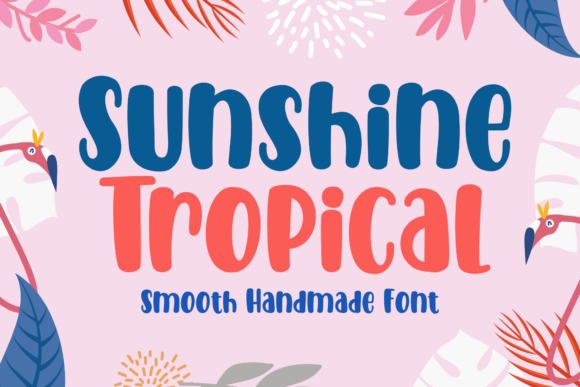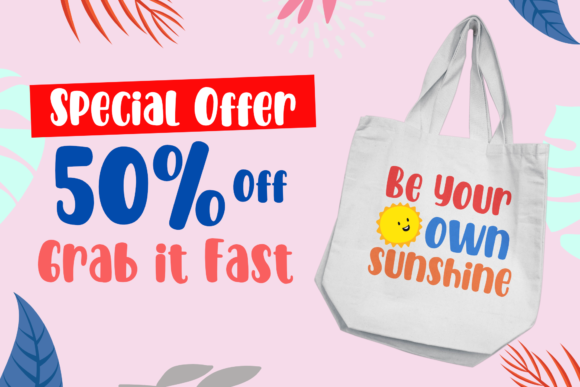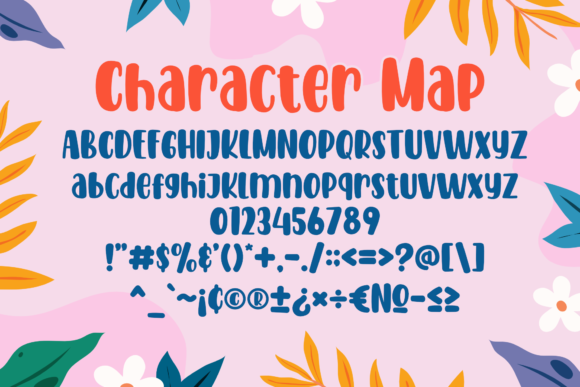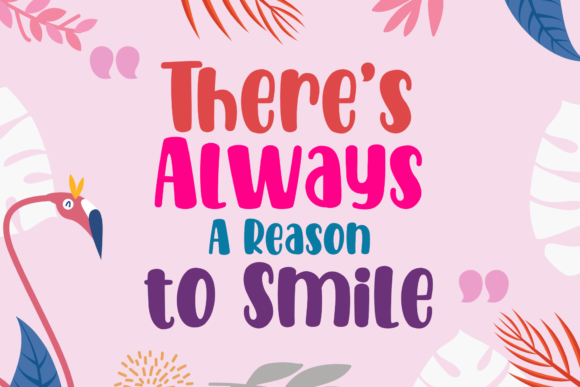
Sunshine Tropical Font
About Sunshine Tropical Font
Sunshine Tropical is a bold and smooth handwritten font, carefully handcrafted to become a true favorite. Its casual charm makes it appear wonderfully down-to-earth, readable and, ultimately, incredibly versatile. Sunshine Tropical will look outstanding in any context, whether it’s being used on busy backgrounds or as a standalone headline!